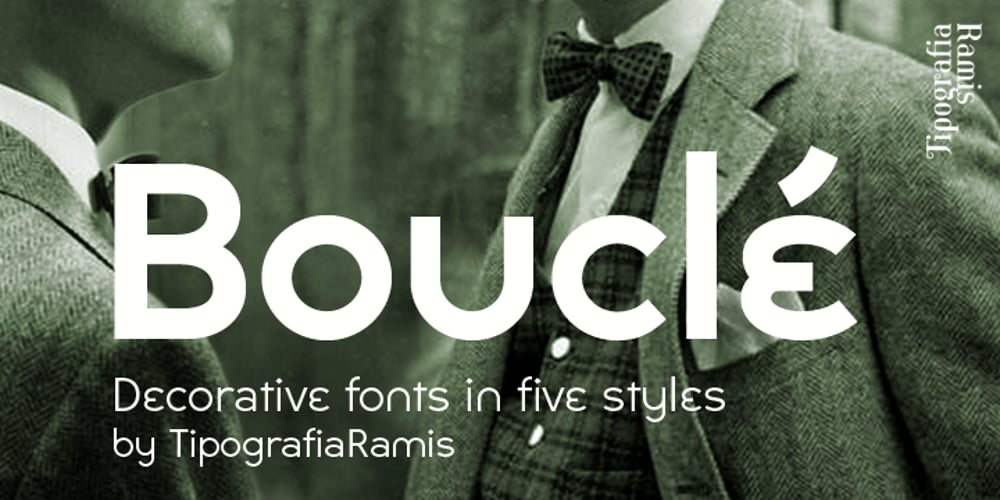
Boucle
Boucle font
Boucle Font Family was designed by Ramiz Guseynov and published by TipografiaRamis. Boucle contains 5 styles and family package options. Bouclé is a monoline decorative typeface family of three subfamilies—Plain, Round and Loopy. Plain and Round come in two weights—regular and bold. Bouclé Plain, as its name states, has minimal decorative features in comparison with Bouclé Round, and especially Bouclé Loopy. Thus, Bouclé Plain fonts could be better used for display text purposes. Round and Loopy fonts are reserved for highly decorative cases.